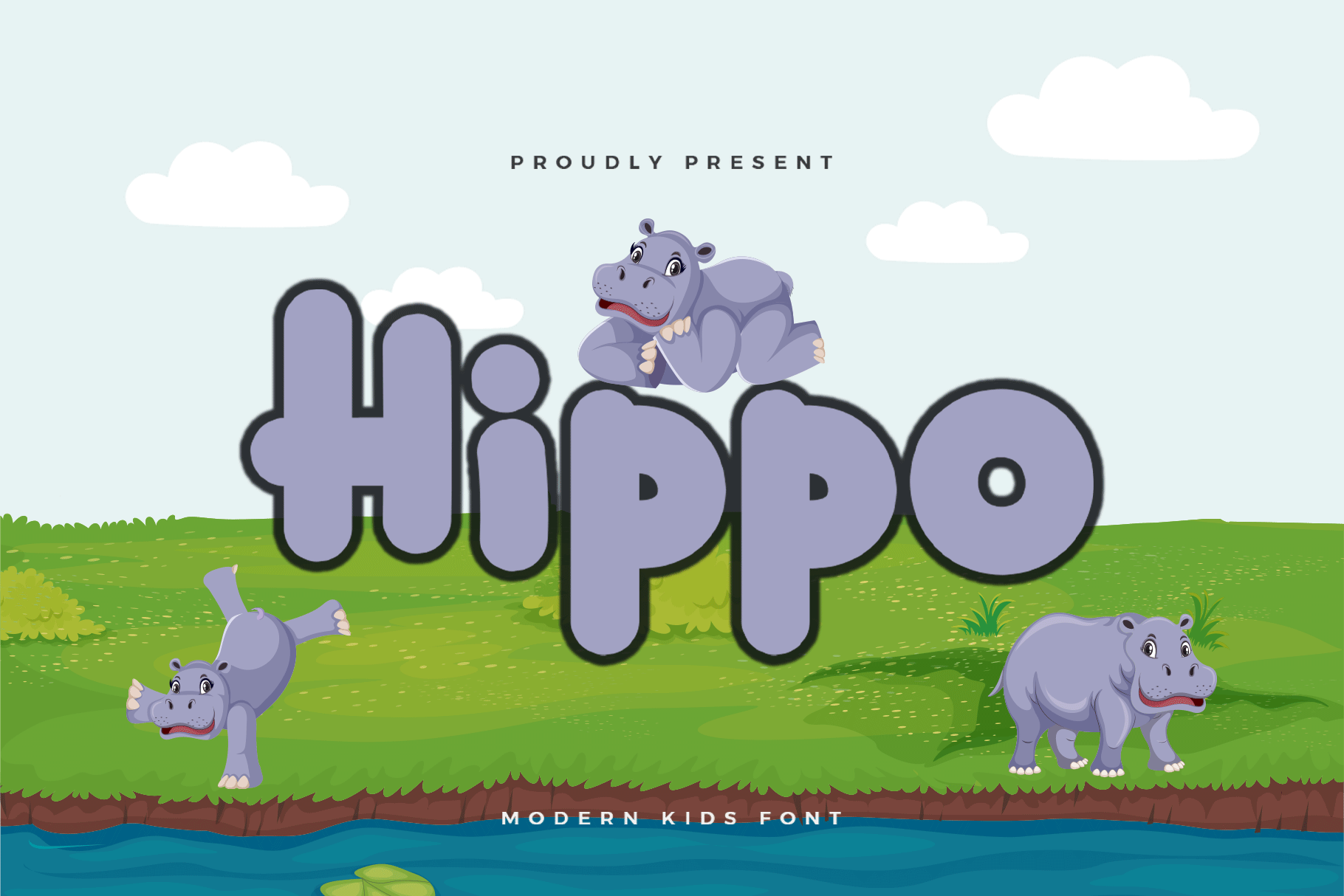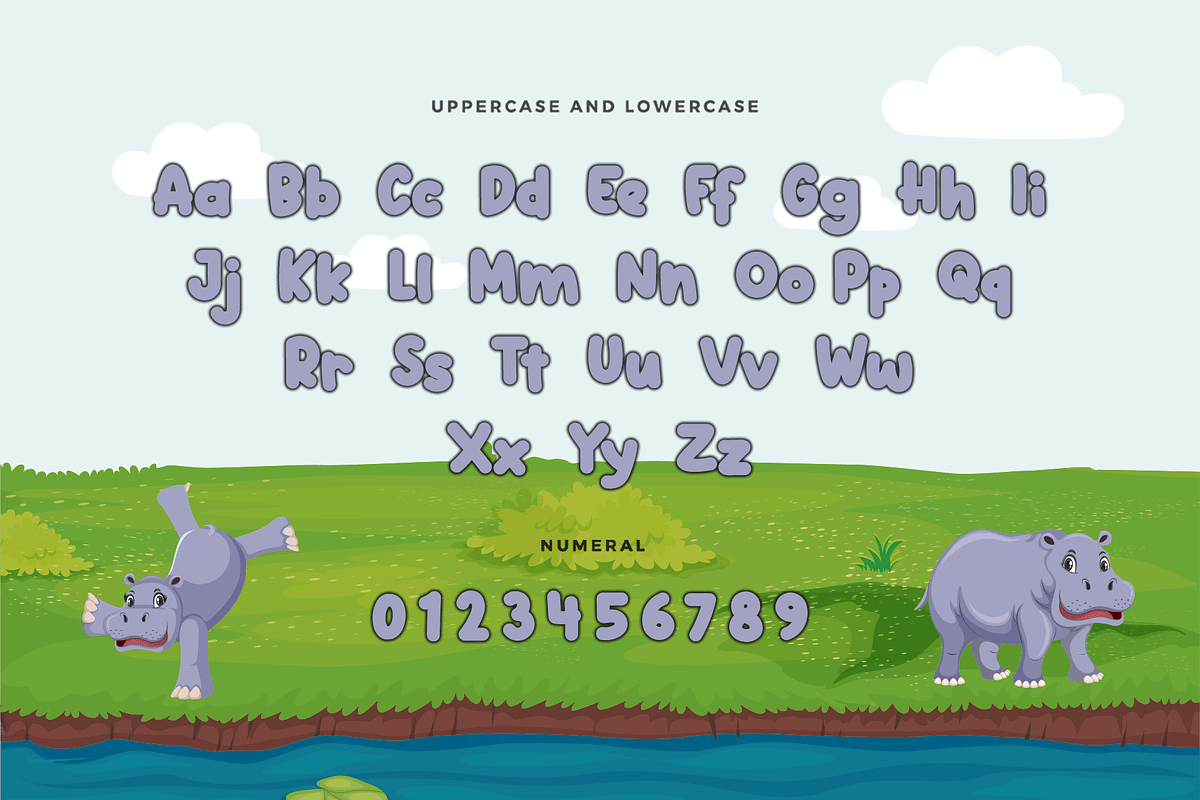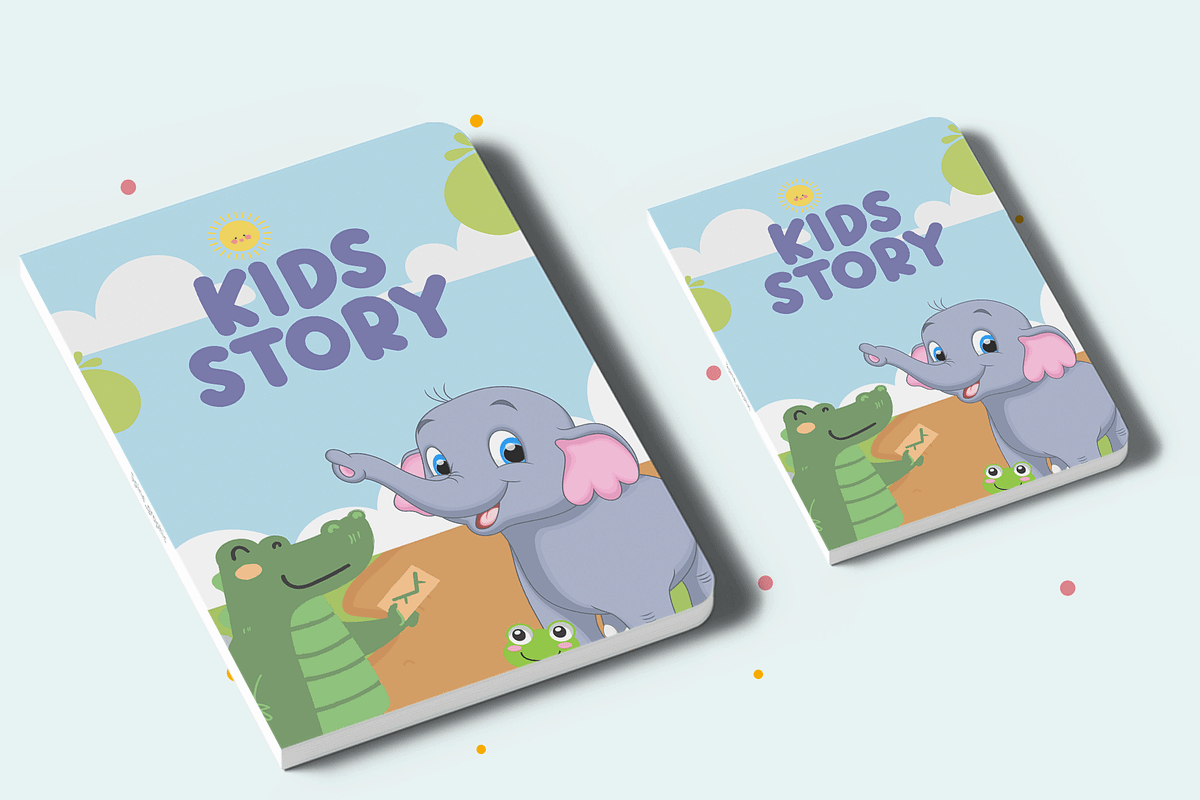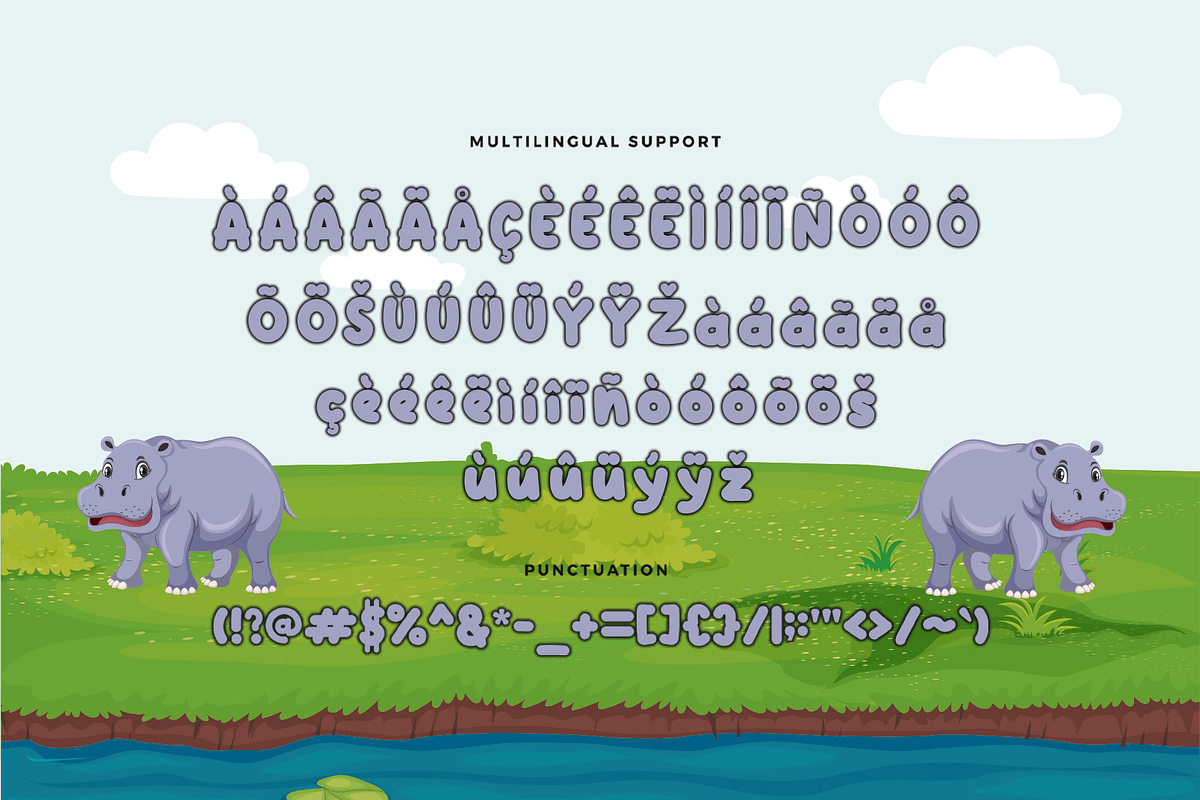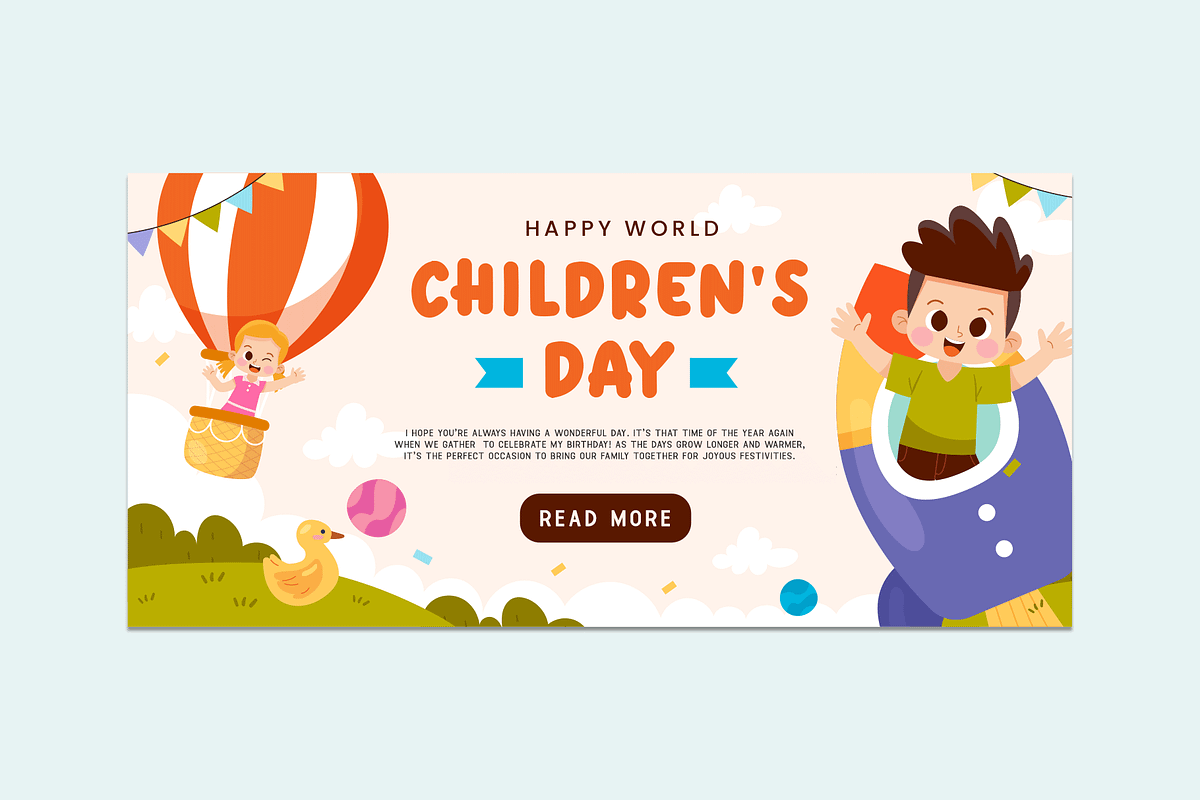
Hippo - Modern Sans Kids Font
Introducing "Hippo," a modern sans kids font that combines playful boldness with endless fun. Perfect for children's book designers, educators, and creatives aiming to capture the joy and imagination of young audiences, Hippo offers a cheerful and vibrant typeface that brings any design to life.
Ideal for children's books, posters, educational materials, logos, and toy packaging, Hippo’s chunky and rounded characters provide a friendly and engaging aesthetic. Each letter is meticulously crafted to ensure readability and visual appeal, making your designs both effective and delightful.
The "Hippo" font includes a complete set of uppercase and lowercase letters, numbers, punctuation marks, and special characters. This versatility allows for seamless integration into various design projects, from lively posters to charming storybooks.
Infuse your designs with joy and creativity using Hippo, the modern sans kids font that makes every project a fun-filled adventure.